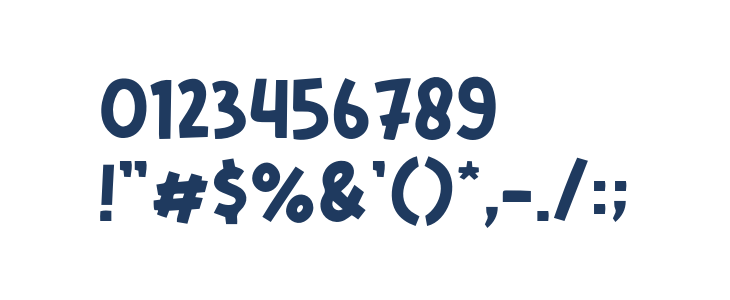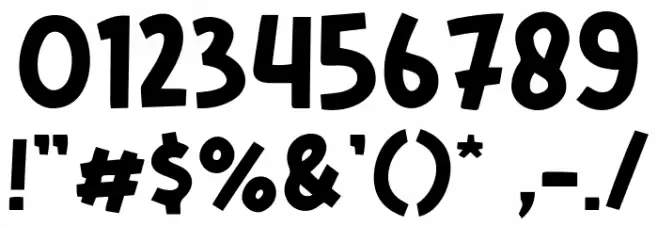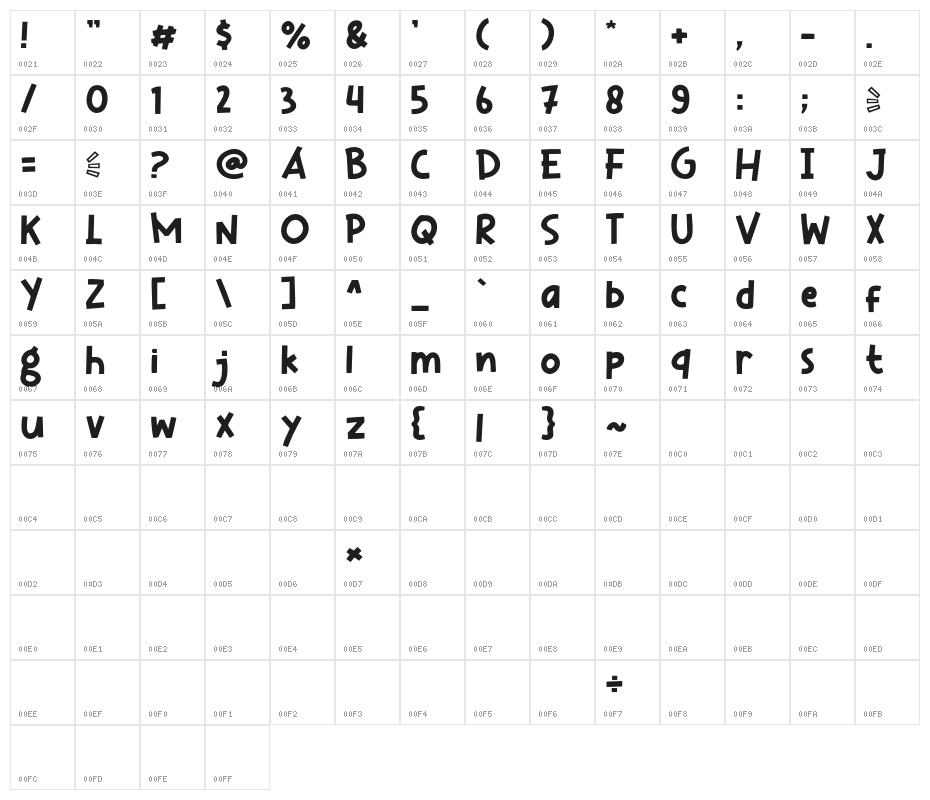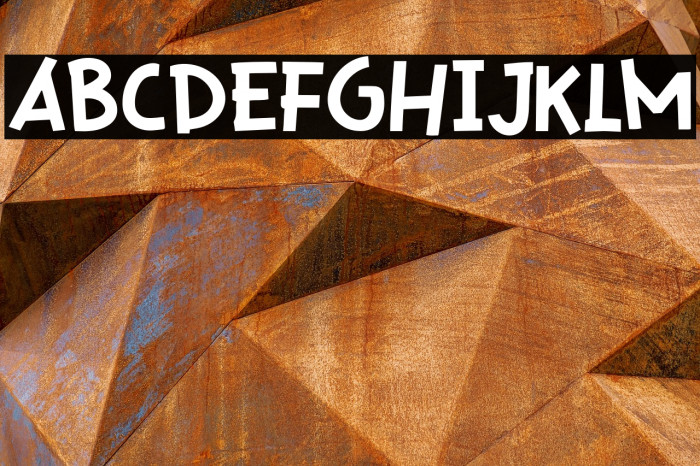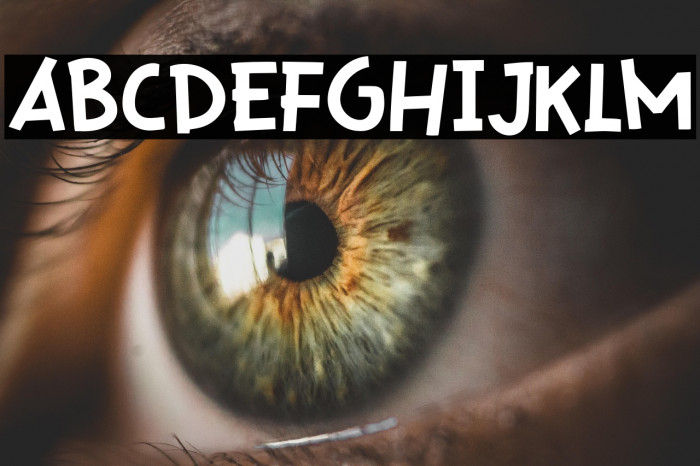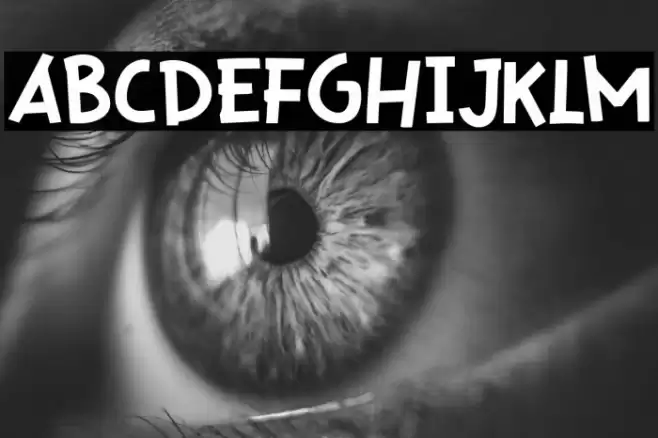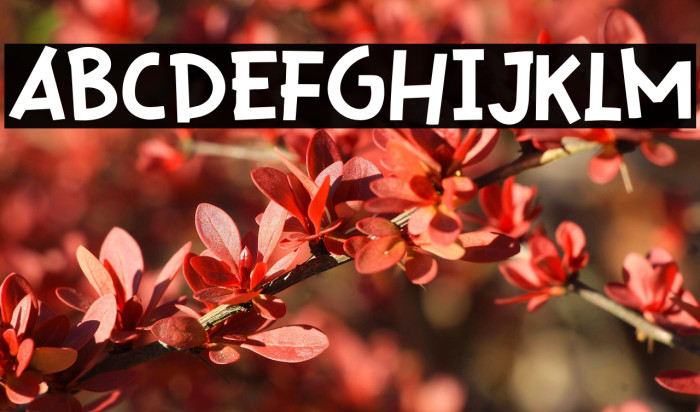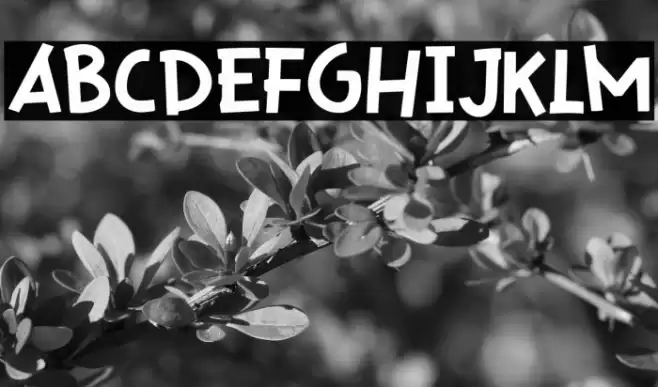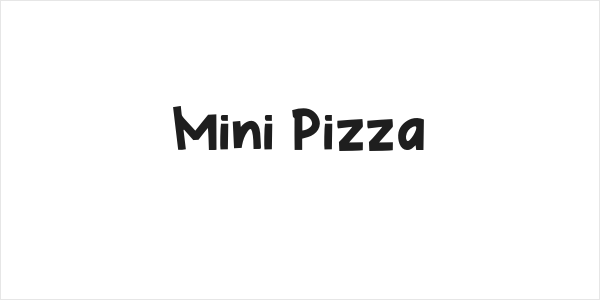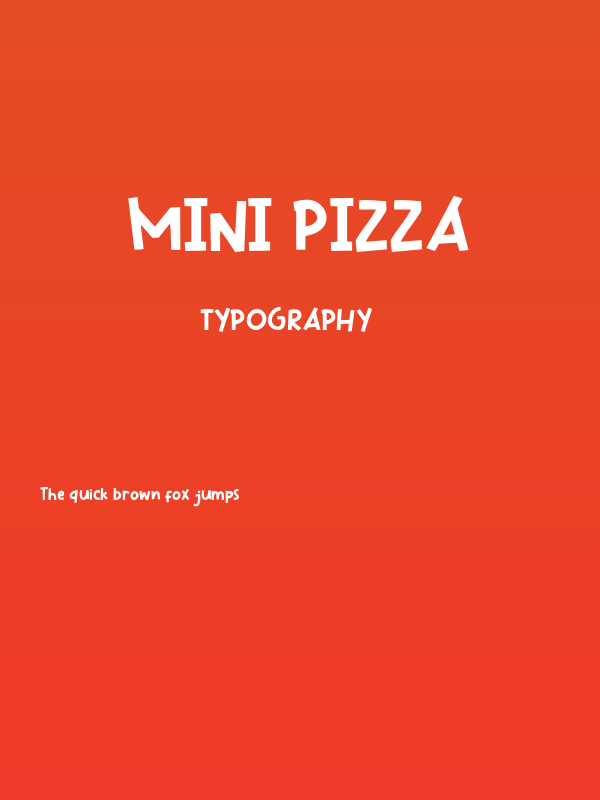
Mini Pizza Font
Mini Pizza Description
This playful and quirky font features bold, rounded characters with a hand-drawn aesthetic. The uppercase letters are slightly irregular, giving them a whimsical feel, while the lowercase letters maintain a consistent, friendly appearance. The numbers are bold and easy to read, with a similar playful style. Special characters are included, maintaining the overall fun and informal vibe. This font is perfect for projects that require a lighthearted and approachable touch, such as children's books, playful branding, or casual invitations.
| Proposed Projects | Ideal for children's books, playful branding, casual invitations, and creative posters. |